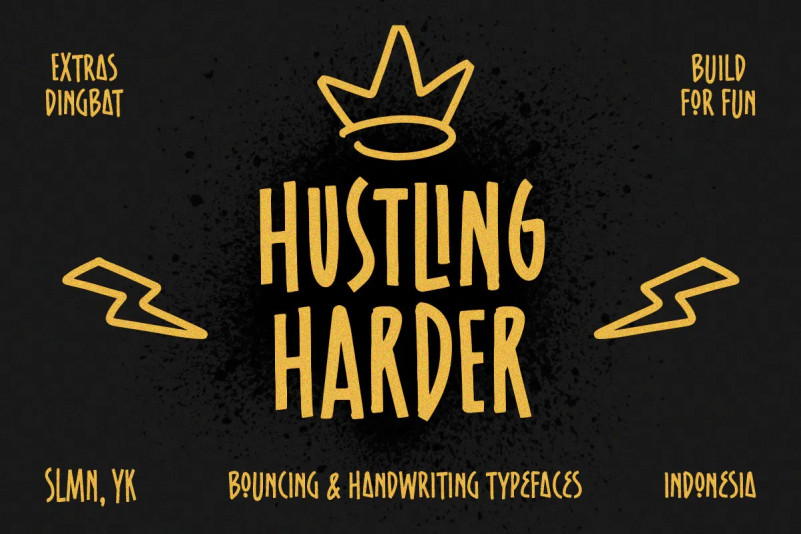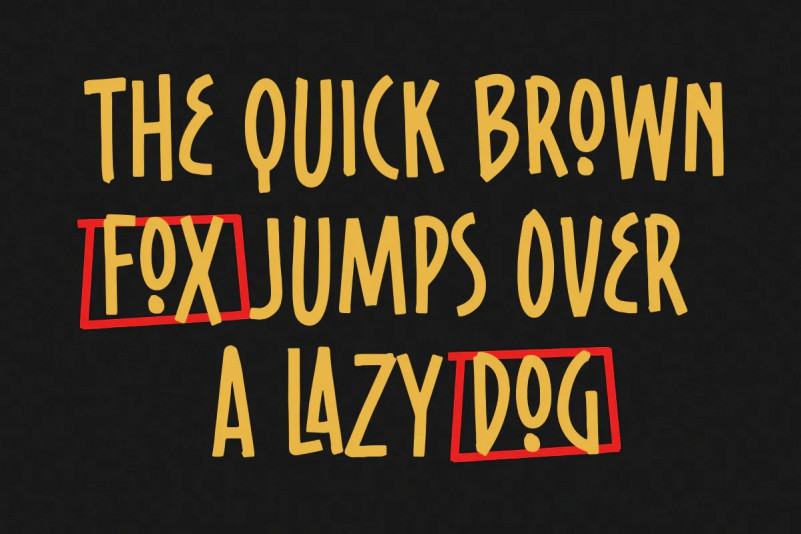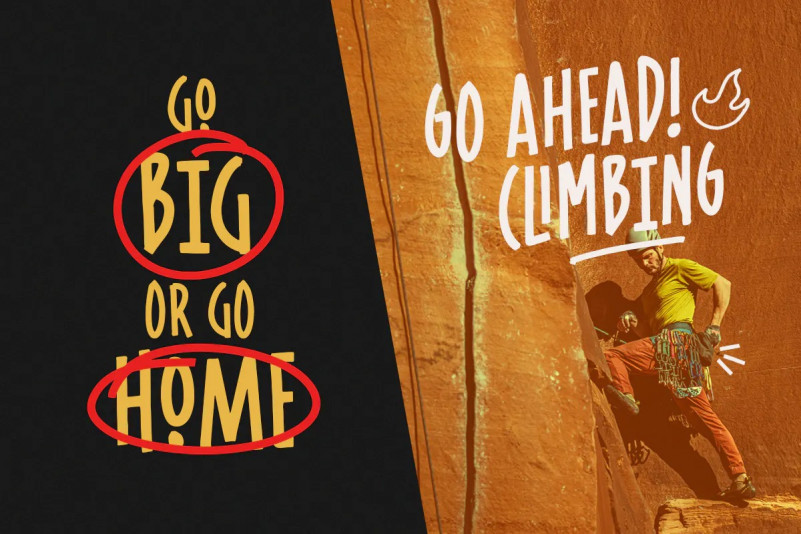
Hustling Harder Font
Hustling Harder, brand new display font with quirky letterforms, perfect and suitable for branding, headline, logotype, sticker, editorial design, and etc. Comes with dingbat to make it more perfect!